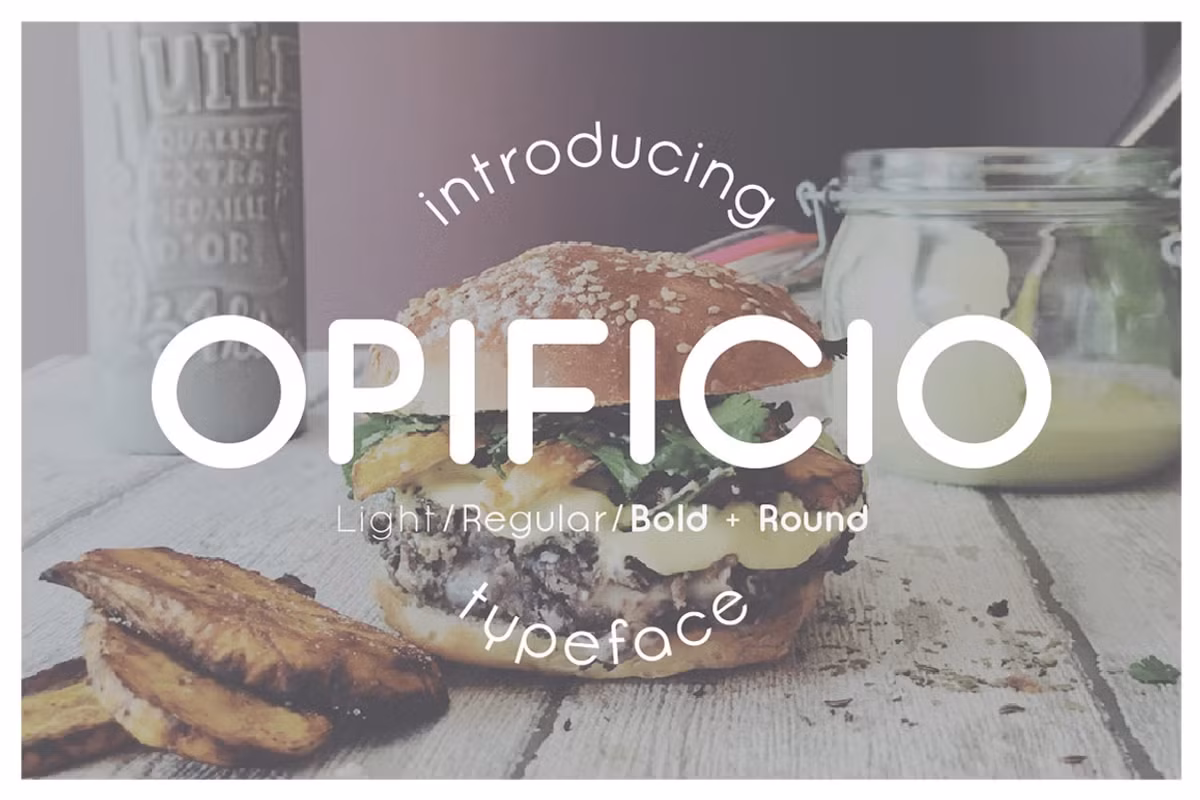
Opificio Font Family Free Download is an industrial-style typeface collection that combines bold functionality with minimalist aesthetics. Inspired by vintage factory signage and utilitarian design, Opificio is perfect for branding, editorial layouts, packaging, apparel, and poster designs. With multiple weights and styles, this versatile font family gives you the tools to create strong, impactful compositions.
Whether you're crafting a modern brand identity or a retro-inspired layout, Opificio Font Family Free Download delivers both style and structure. Its clean lines, geometric forms, and subtle vintage flair make it ideal for designers seeking a balance between rugged charm and professional precision.
Opificio performs beautifully across digital and print mediums, maintaining clarity and presence at any size. It pairs well with both serif and script fonts, giving you endless possibilities for creative contrast.